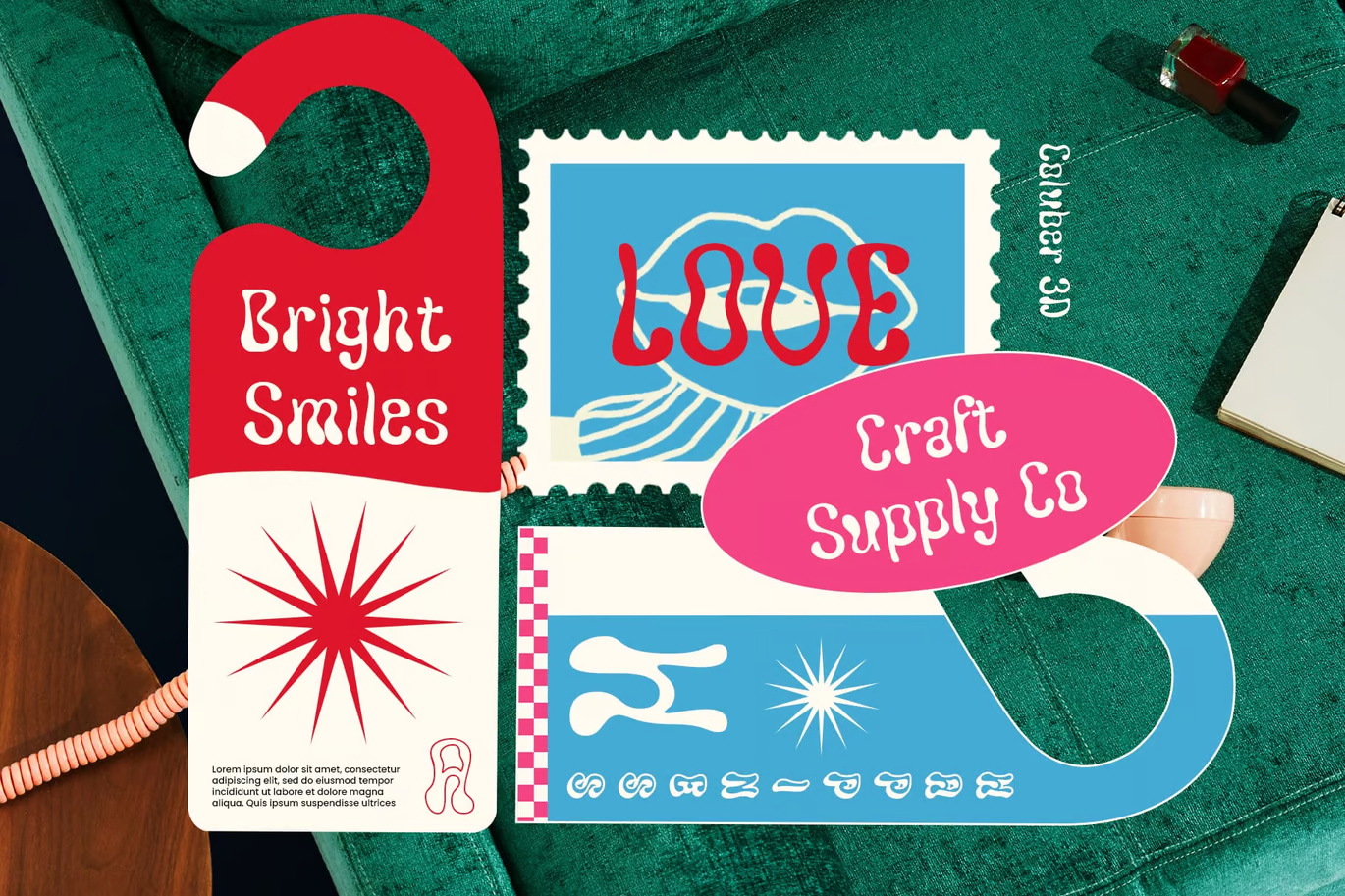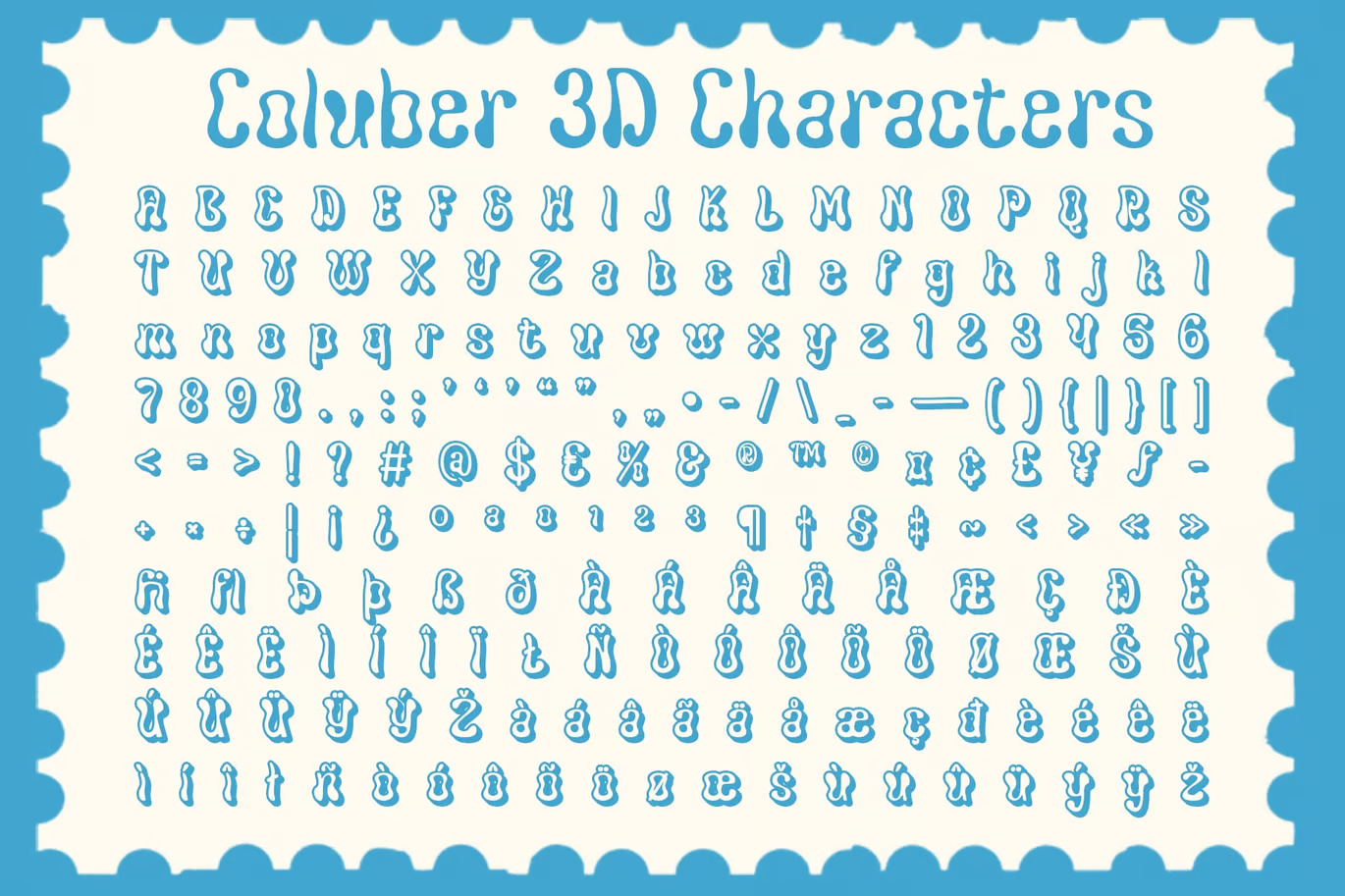
Coluber 3D Font: A Psychedelic Fusion of Funk and Dimension
Coluber 3D is a bold display font that captures the essence of psychedelic and trippy aesthetics. With its wavy, fluid letterforms and funky, high-energy vibe, it brings movement and excitement to any design. Its unconventional shapes make it ideal for projects that demand creativity and a bold visual presence.
Enhancing its lively appearance, Coluber 3D features a striking three-dimensional effect that adds depth and a surreal touch. The layered and shadowed look makes the letters pop, creating a mesmerizing optical illusion that stands out in posters, headlines, and eye-catching graphics.
Designed for bold and expressive applications, Coluber 3D thrives in experimental design spaces. Whether used for music posters, festival branding, album covers, or vibrant advertising, its playful yet edgy aesthetic amplifies the energy of any composition.
From retro-futuristic layouts to modern psychedelic artwork, Coluber 3D adapts seamlessly to various artistic directions. Its unique balance of funk, fluidity, and dimension makes it an excellent choice for designers looking to push creative boundaries and make a statement.
Coluber 3D Decorative Font